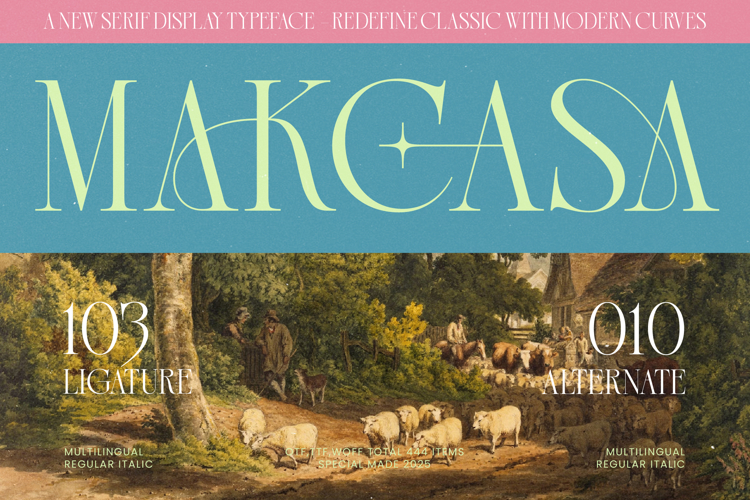
Makcasa New Serif Display Typeface
Redefine visual luxury with timeless curves and sharp precision. Introducing Makcasa - New Serif Display Typeface, a mesmerizing typeface meticulously crafted to combine the drama of high-contrast stroke weights with the sophisticated flair of contemporary design. This display serif commands instant attention, featuring elongated ascenders, delicate horizontal hairlines, and distinctively ornate terminals that recall classic elegance while maintaining a fresh, modern sensibility. It is the perfect foundational asset for projects demanding maximum typographic impact and refined artistry.